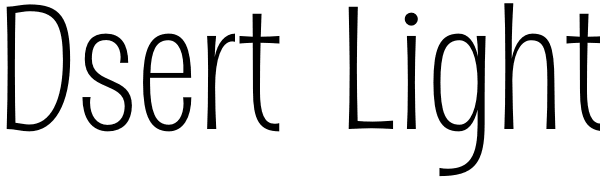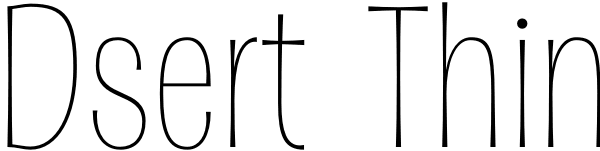
Dsert
D Sert—based on the Pirata typeface—is inspired by 70s Chilean constructivist design and the political propaganda posters artwork of La Unidad Popular (Chilean political coalition). D Sert is the result of the combination of the Chilean graphic art...